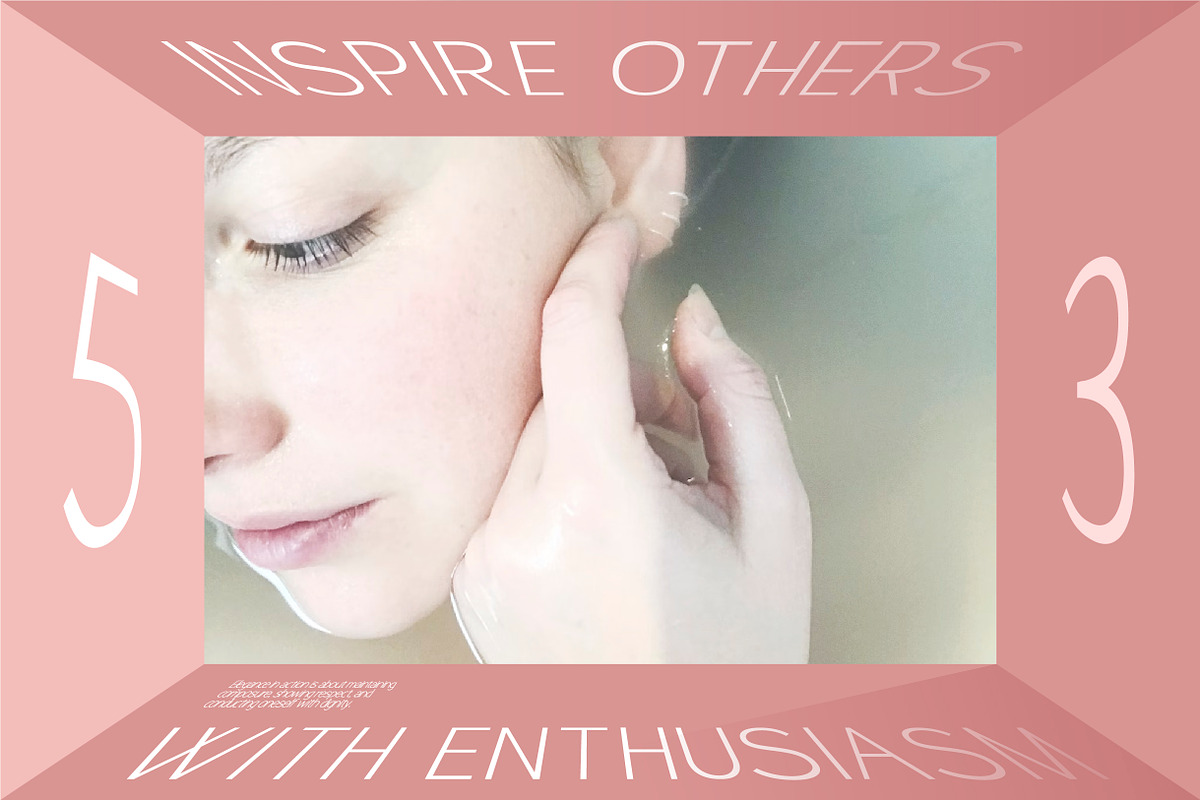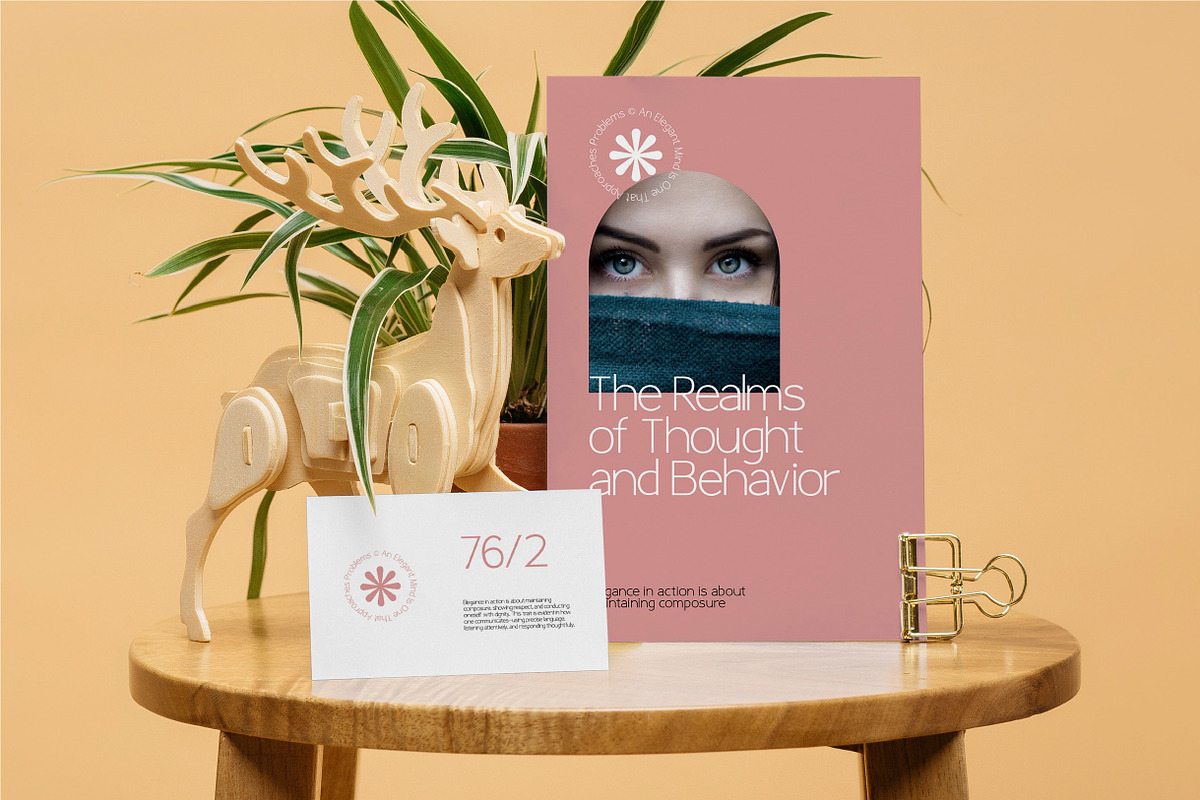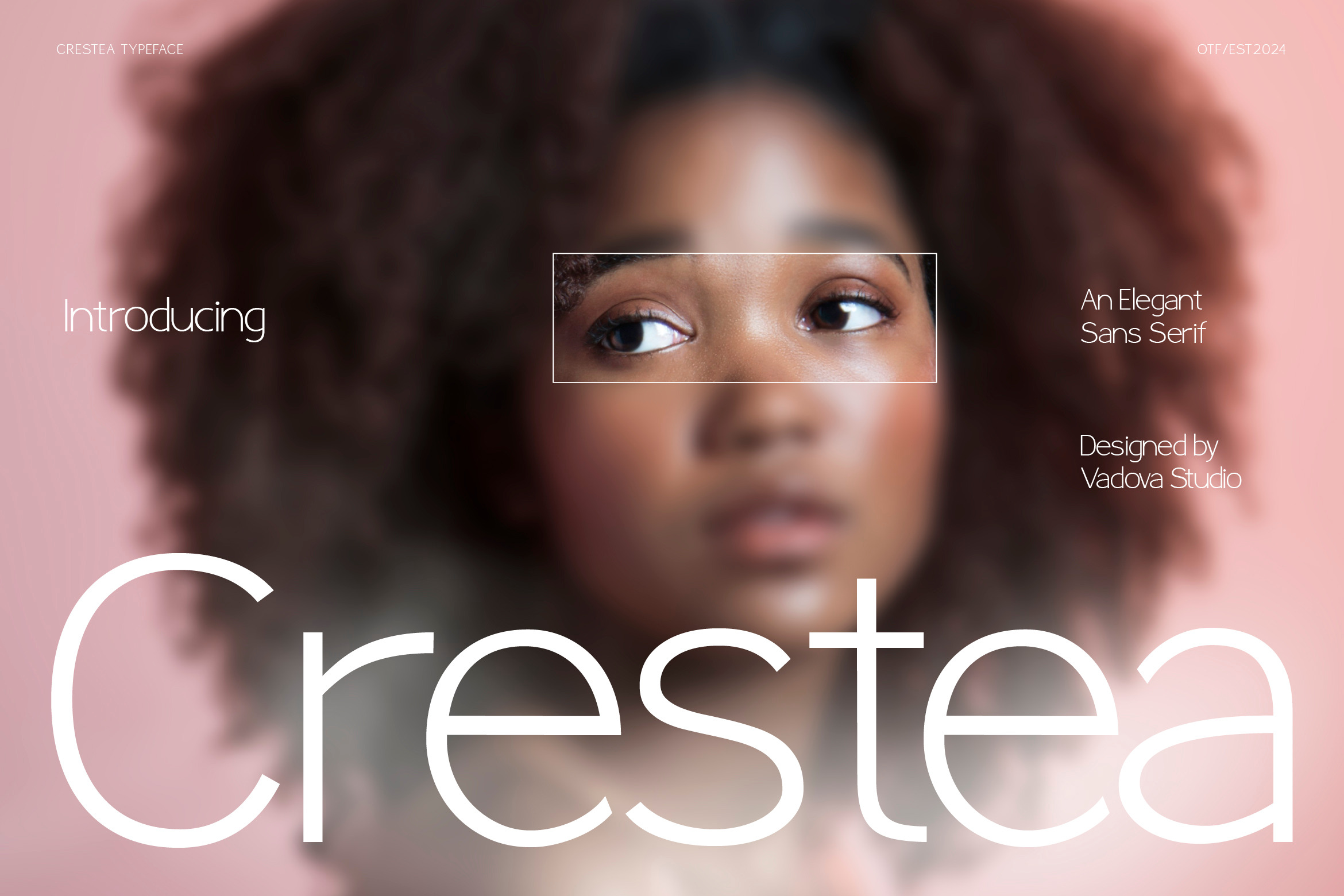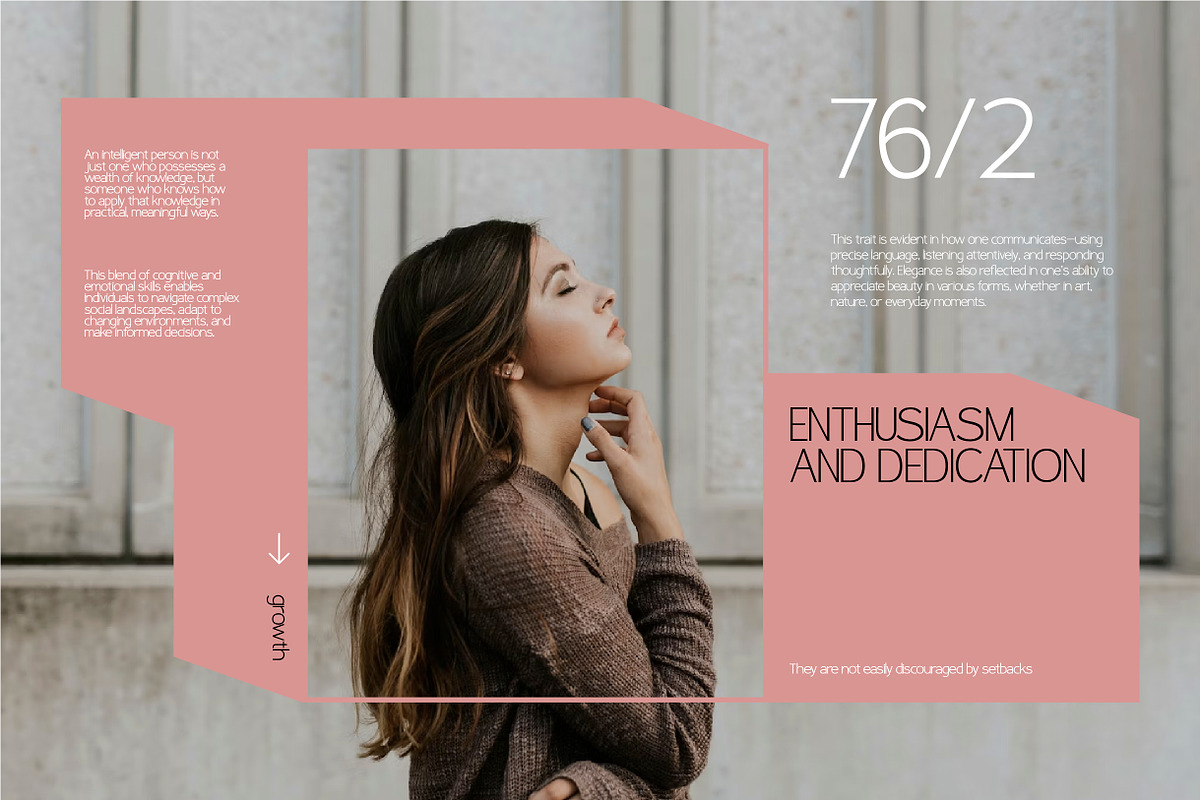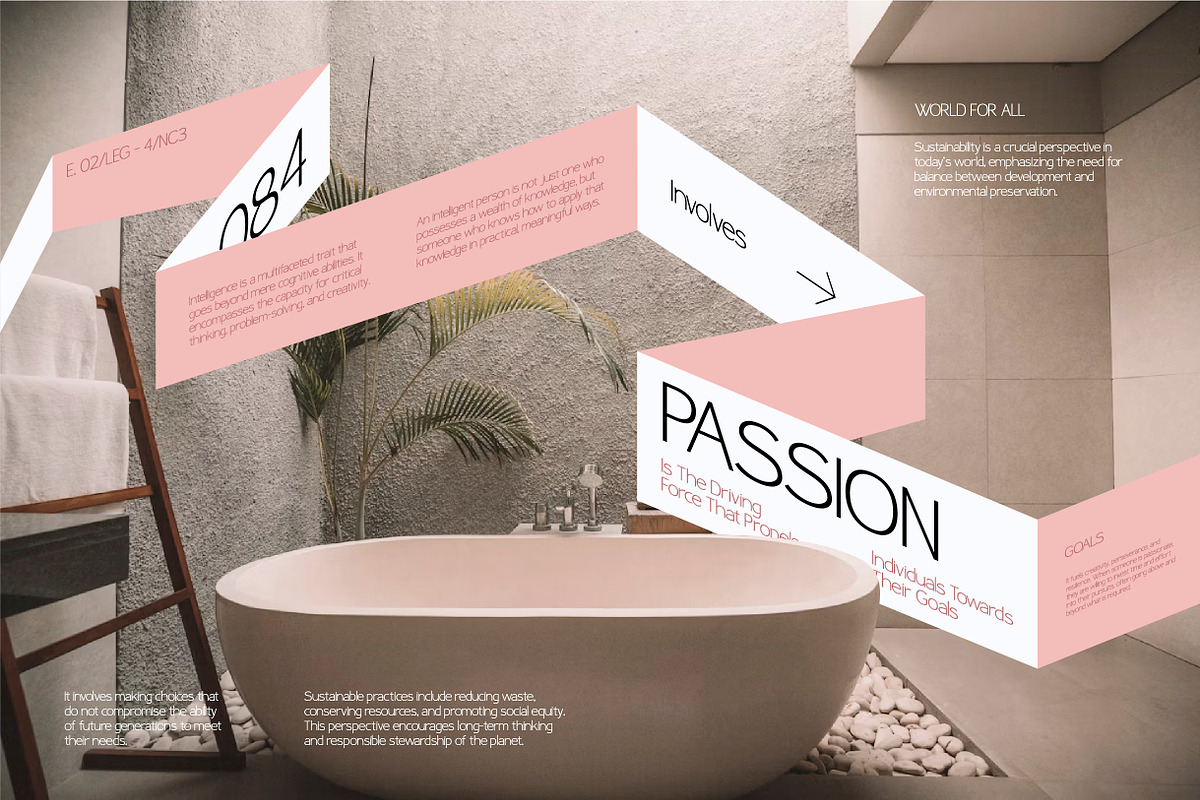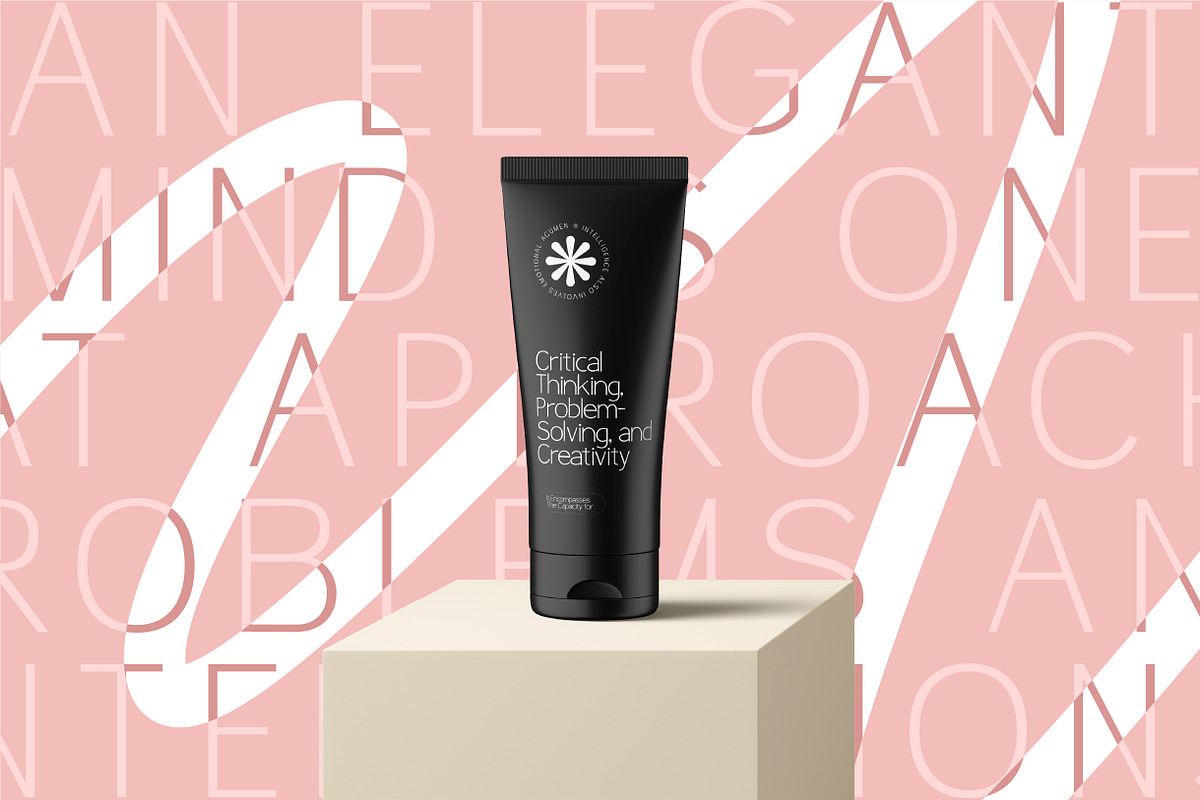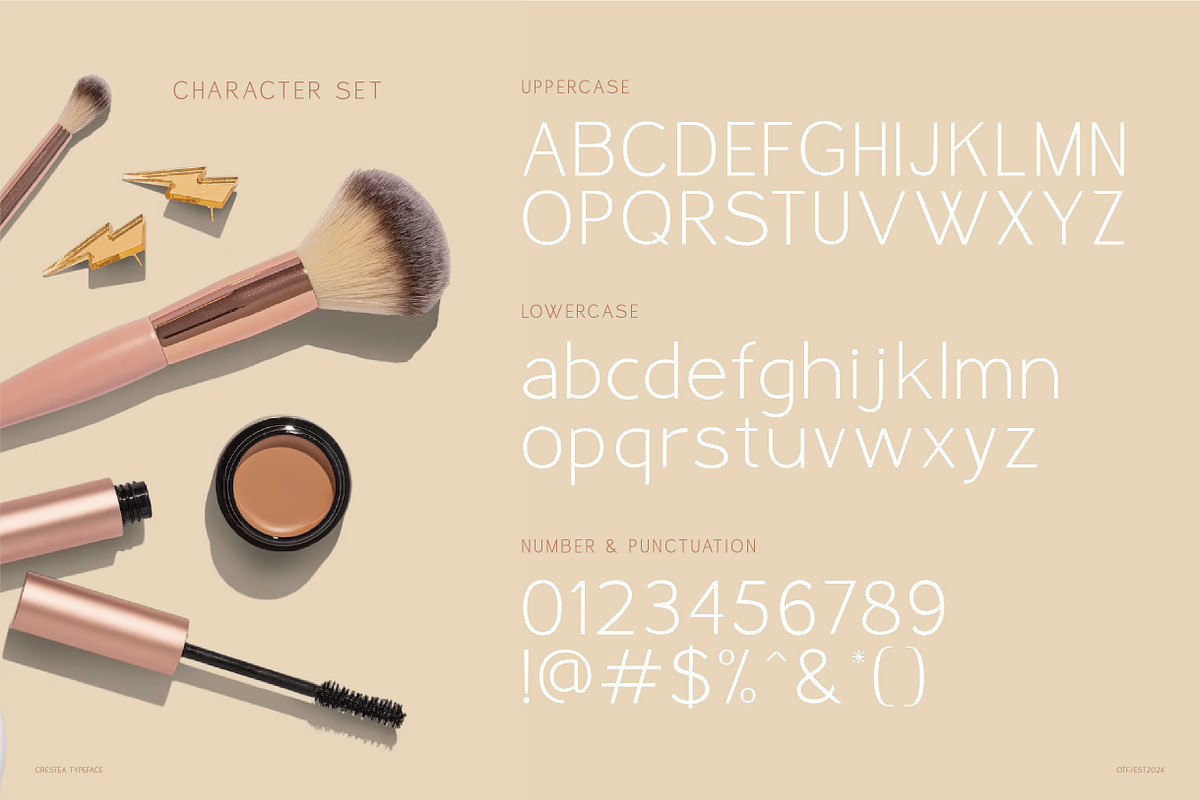
Crestea - Elegant Sans Serif Font
Crestea is an elegant sans serif font designed with modern sophistication and clean minimalism. Its graceful letterforms and smooth proportions give a refined character that works beautifully across both editorial design and contemporary branding. Crestea combines clarity with elegance, making it a typeface that feels at home in both digital and print projects.
Why Choose Crestea:
Elegant simplicity with modern refinement
Editorial strength for magazines, books, and layouts
Luxury appeal for branding and fashion identity
Versatile balance between professional and creative design
Fashion branding & lifestyle identity
Editorial layouts & magazine covers
Wedding stationery & invitations
Logo design & visual identity
Posters, flyers & advertising
Website headers & digital campaigns
Modern elegant sans serif style
Clean curves & smooth details
Strong readability in multiple sizes
Balanced proportions for versatile usage
Timeless sophistication with a contemporary feel
Elevate your projects with Crestea, a typeface that blends minimal elegance, editorial charm, and timeless modernity.